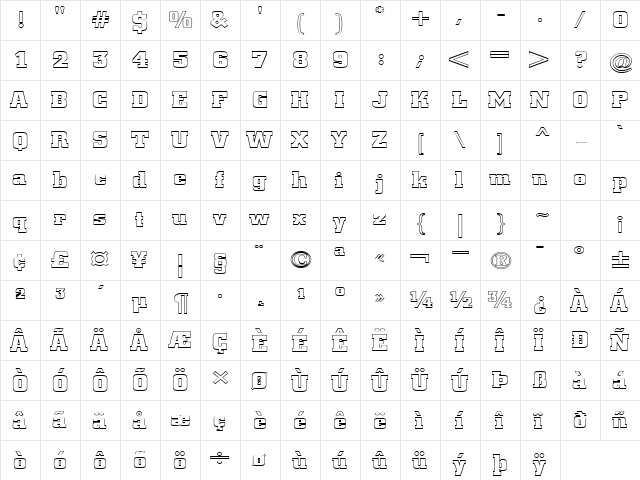
BorghsHollowExtended Normal
Design Context for BorghsHollowExtended Typeface
BorghsHollowExtended takes a measured approach to typography — its balanced proportions and neutral character make it a reliable workhorse for both digital and print work.